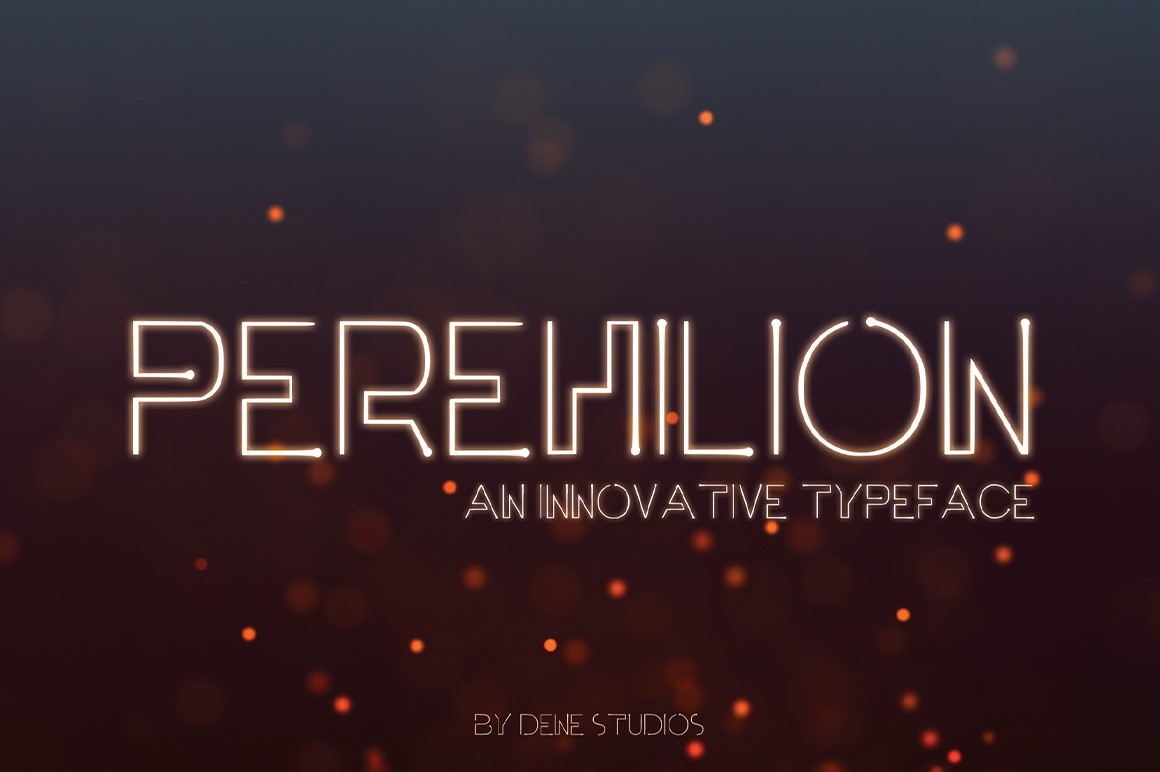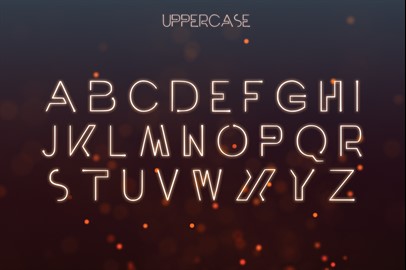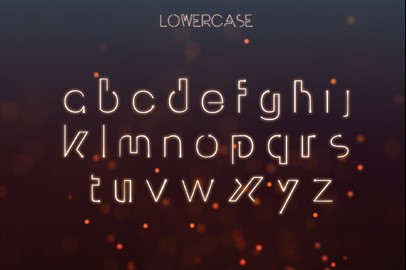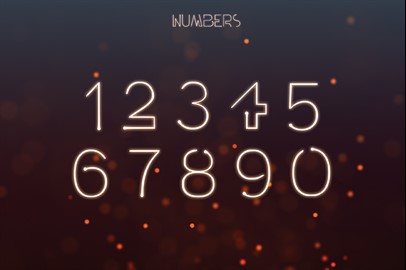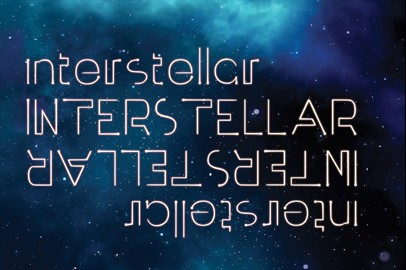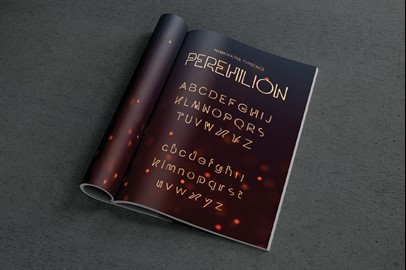
PEREHILION Typeface
Perehilion
is a unique and creative design that has been passionately handcrafted to give you an innovative typeface. Inspired by sci-fi, this font is perfect for your next project, especially if you want to give a futuristic feel.